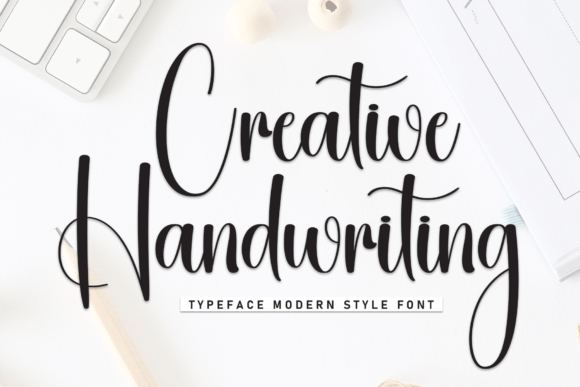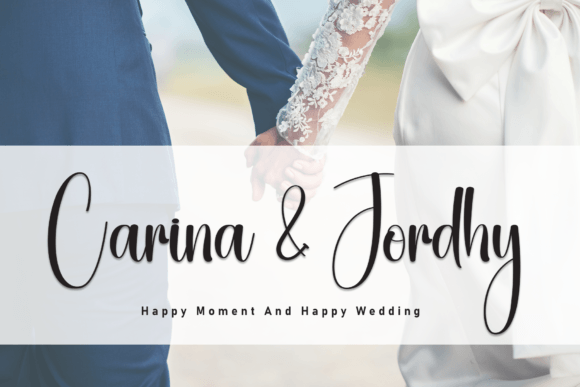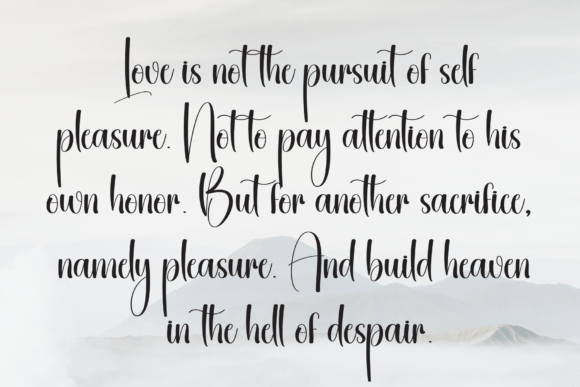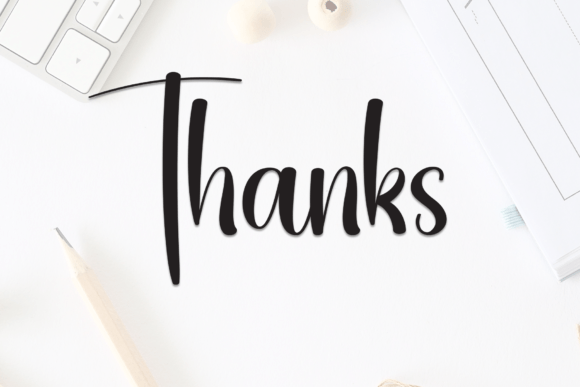
Creative Handwriting Font
Creative Handwriting is a lovely and timeless handwritten font. It is the best choice for creating eye catching logos, branding and quotes. Every letter has a unique and beautiful touch, which will make your design come alive!